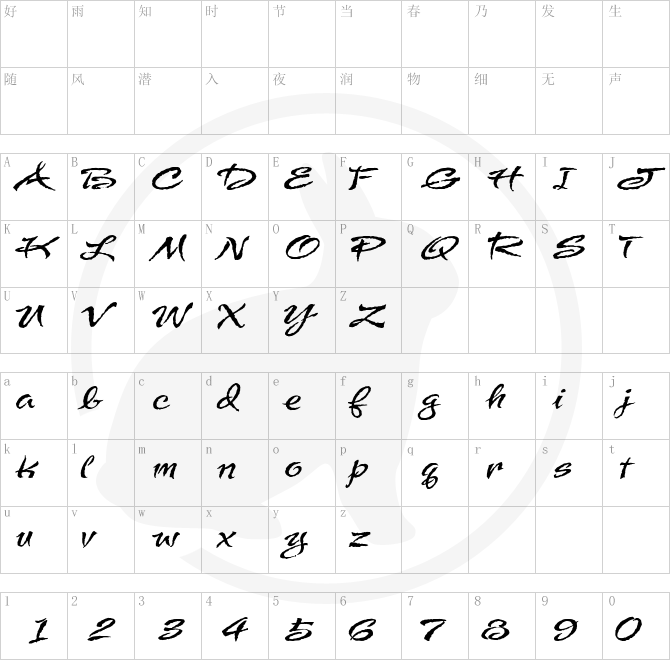
- Font Name:Nancephoria
Nancephoria.ttf is a very beautiful artistic font, Nancephoria.ttf is widely used in the design and printing of various books and pictures,Nancephoria.ttf has a strong visual impact,Nancephoria.ttf is a commonly used font in newspapers, magazines and books, and is used in posters, e-commerce Poster design, store design, logo design, font design and other fields.Nancephoria.